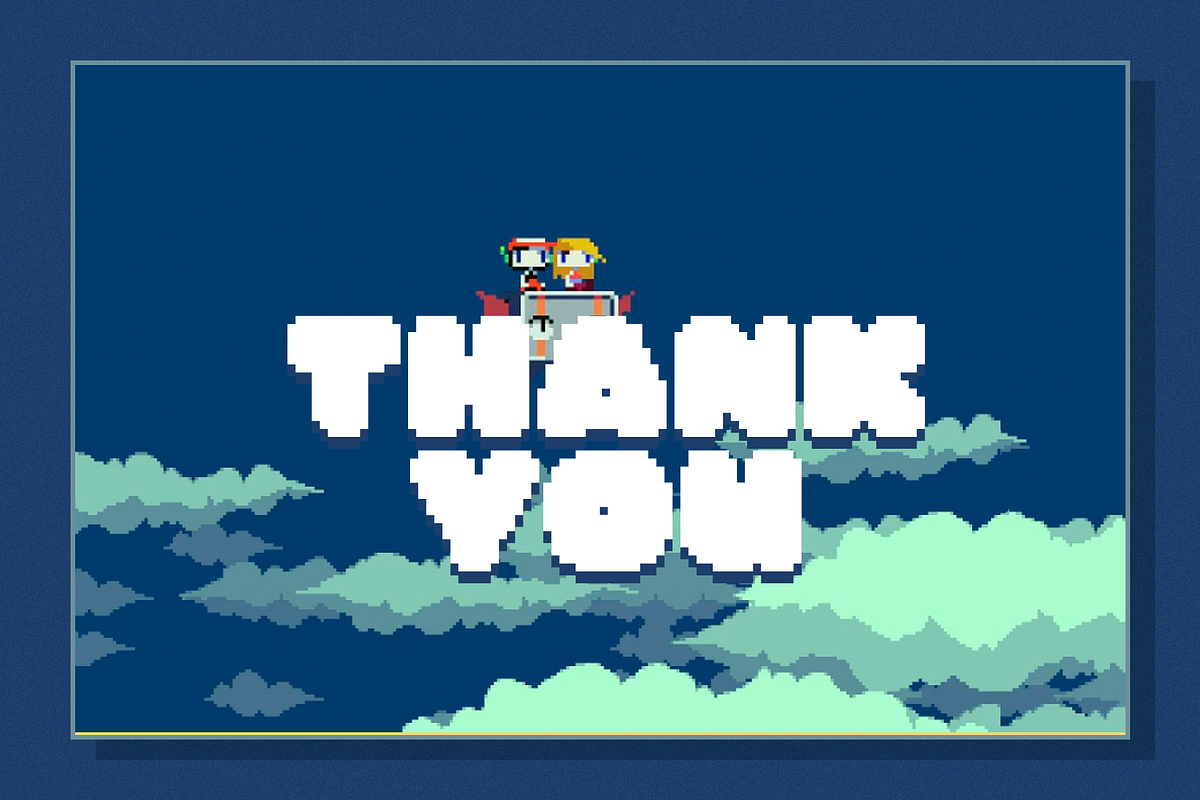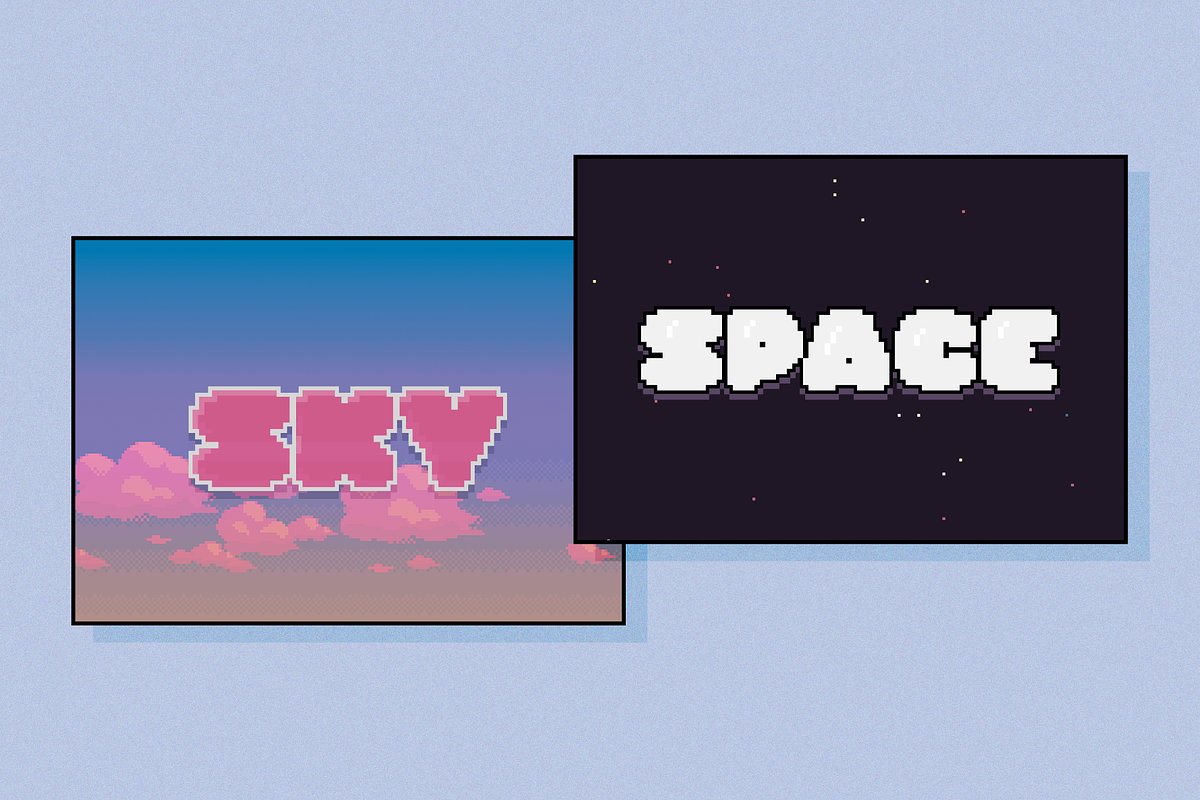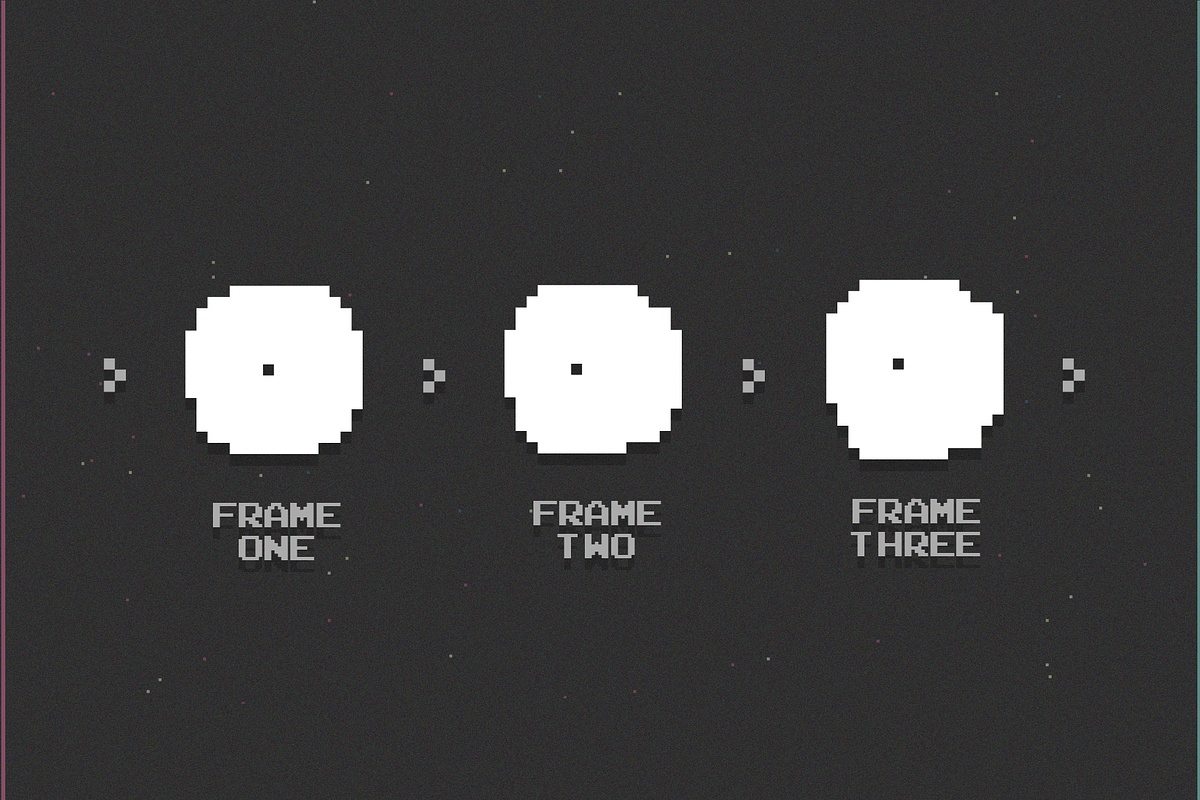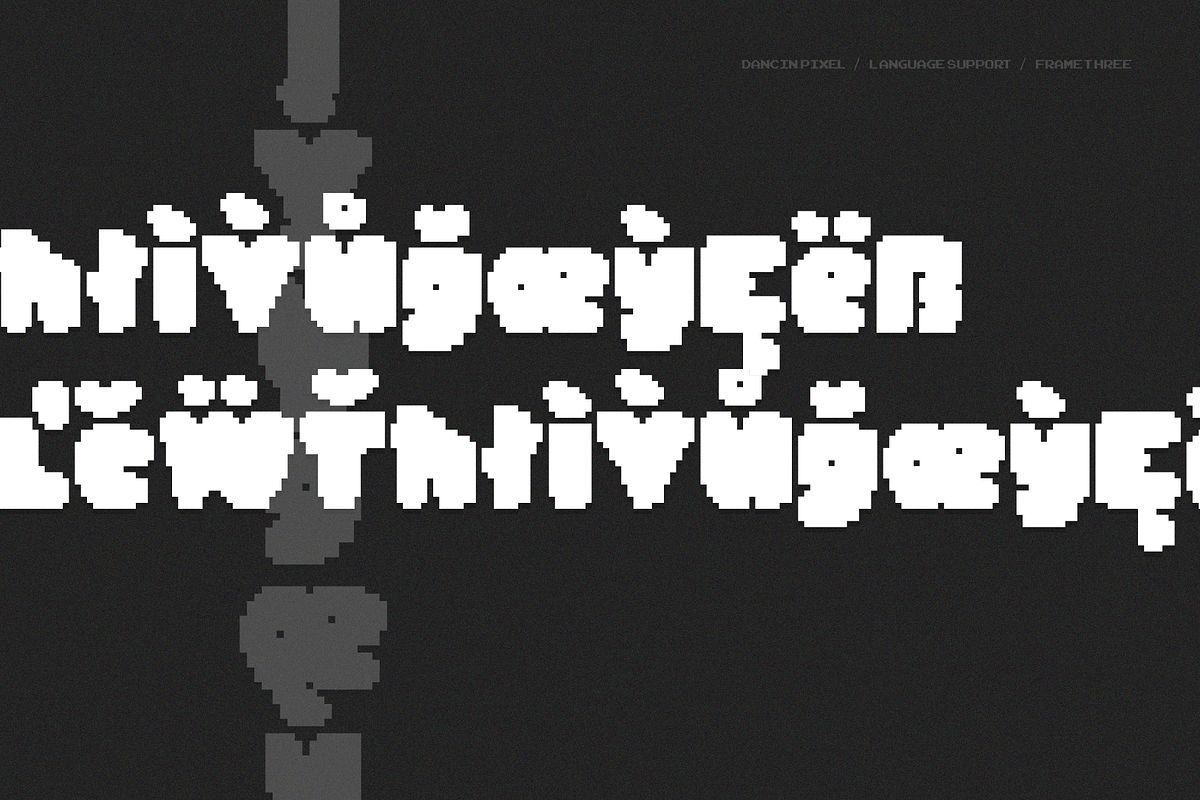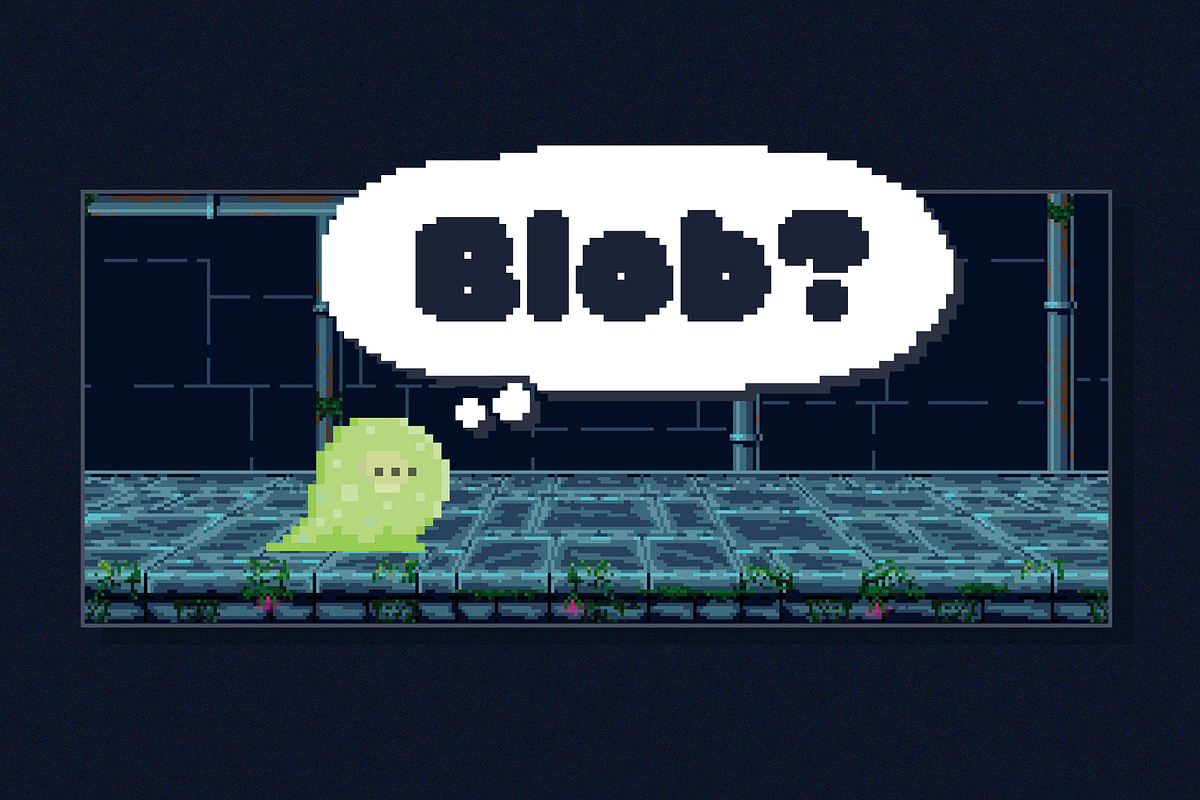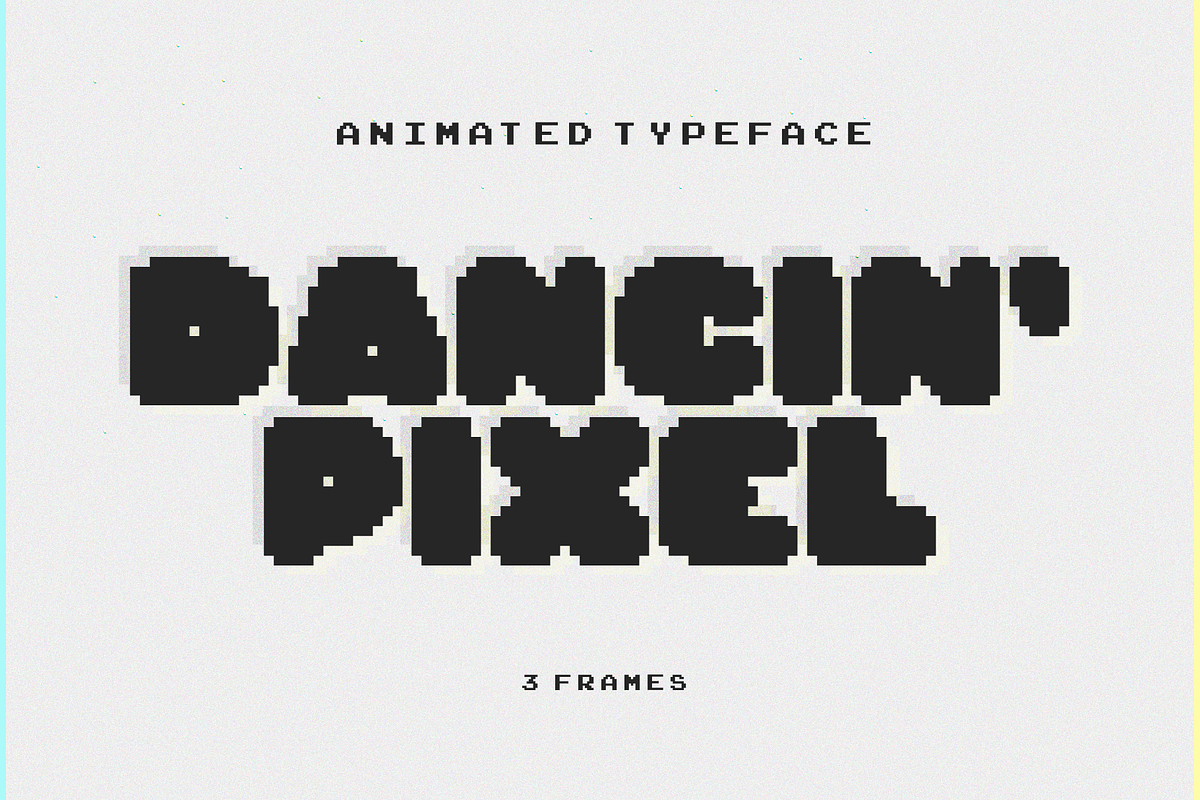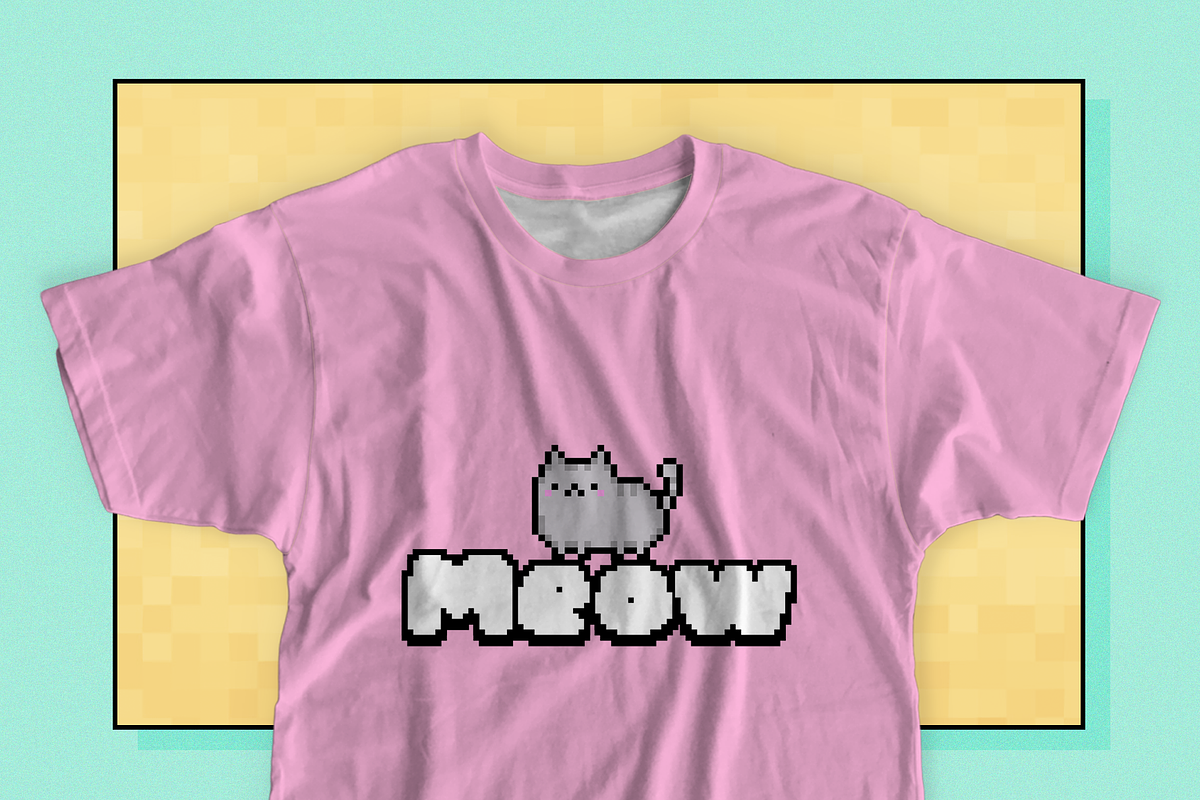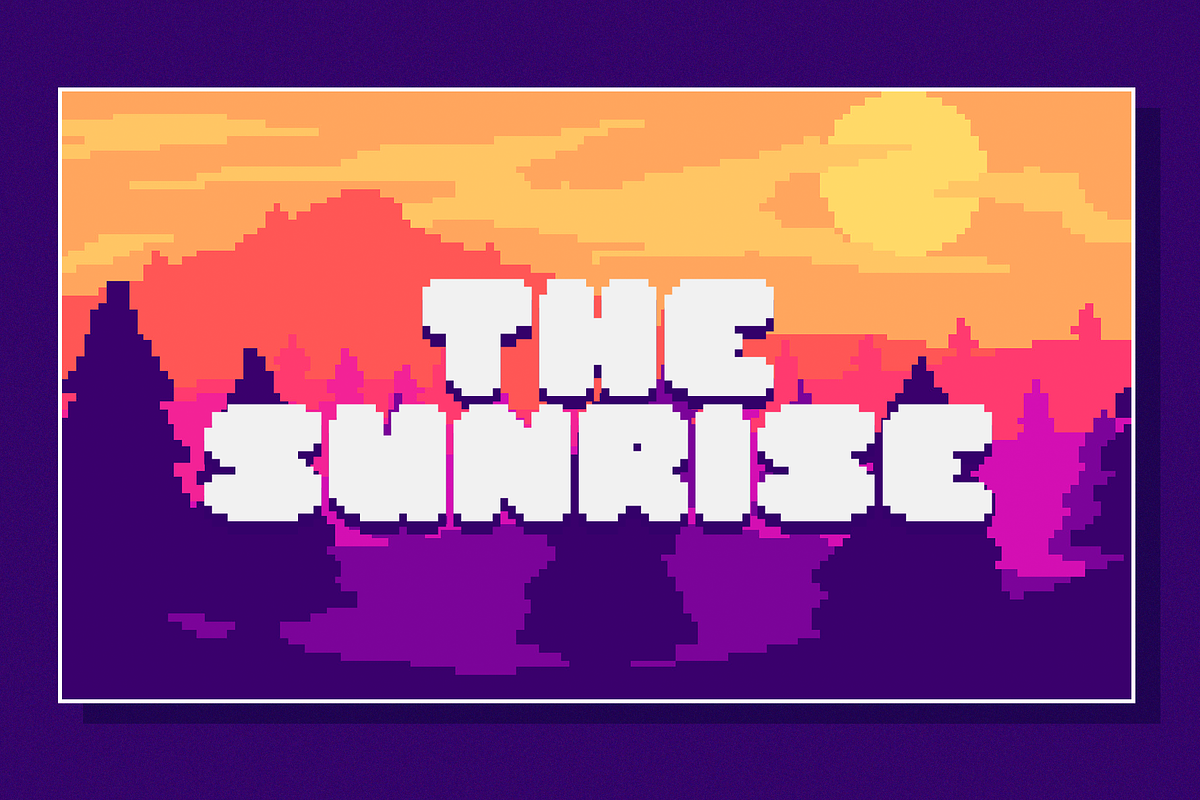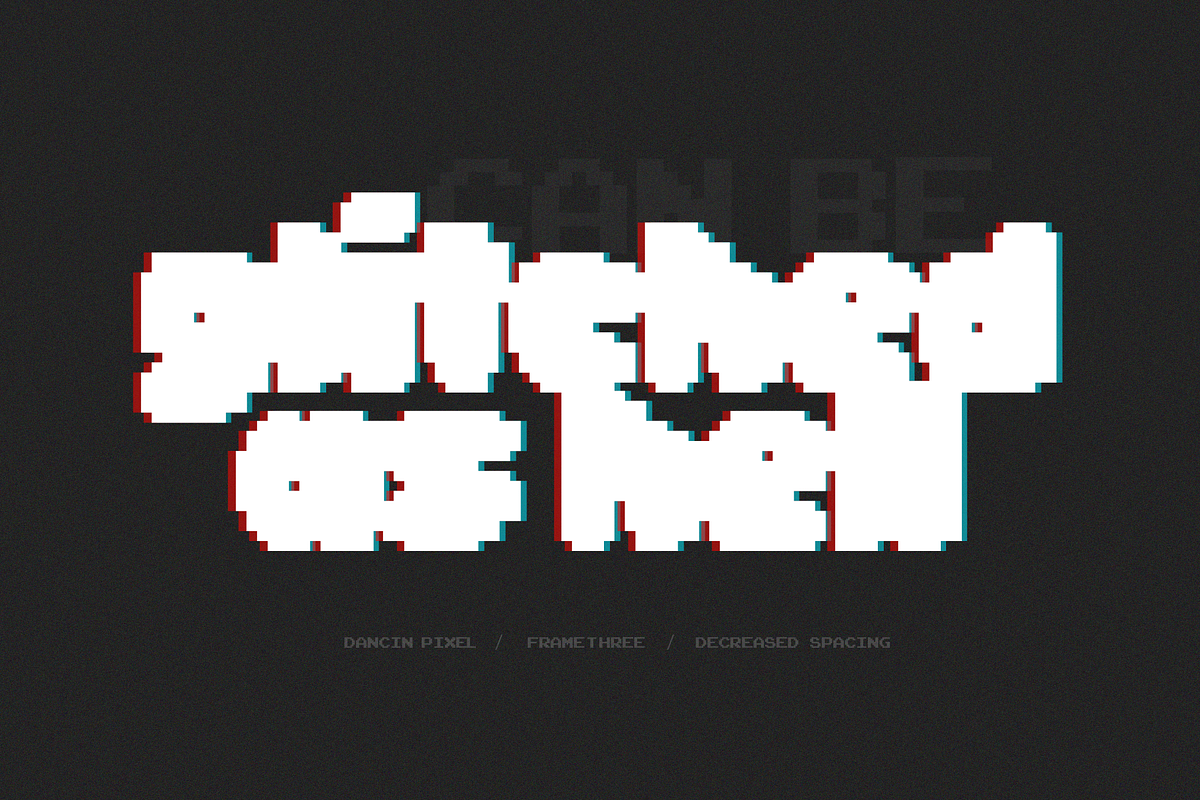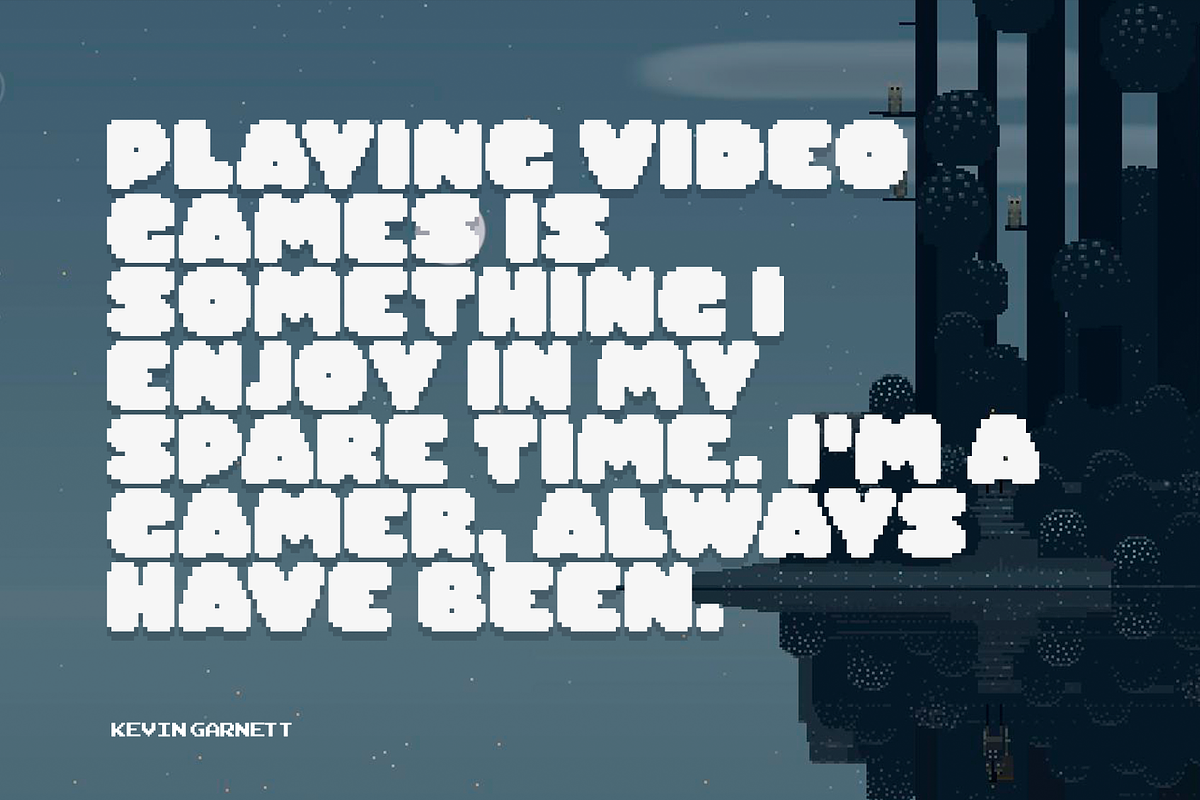
Dancin' Pixel | Animated Typeface
Why is this typeface 'Dancin'? Because It consists of 3 styles each represents one frame of animation. And you can easily create a nice pixel typography animation using Dancin' Pixel.
If you are not interested in making animation, you can also use Dancin' Pixel as a regular font. I combined hand-drawn bold letters with pixel style, and it perfectly fits for stylish pixel game headers, prints, posters, websites, and anything connected with pixel art. The Frame Three is great for glitched pixel designs, it has distorted shapes.